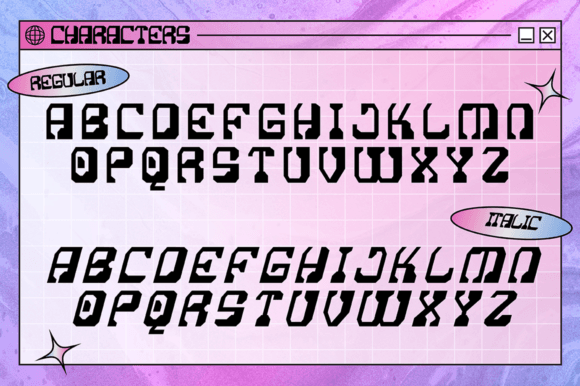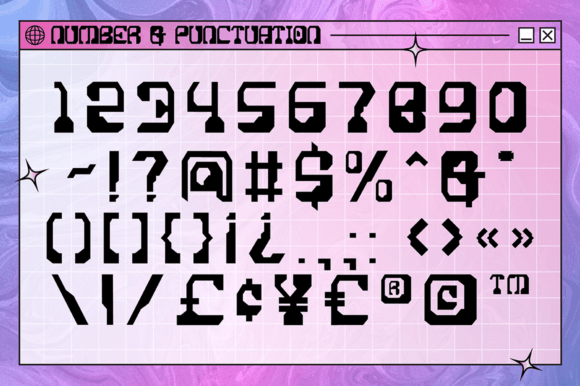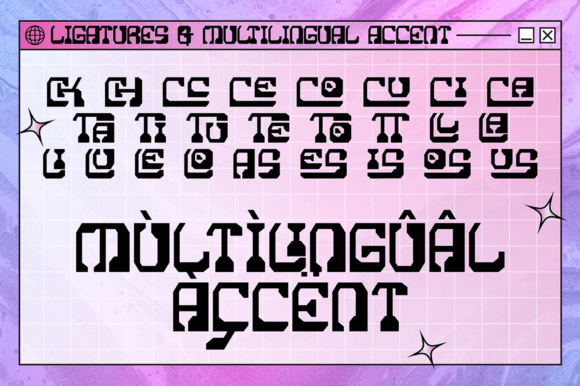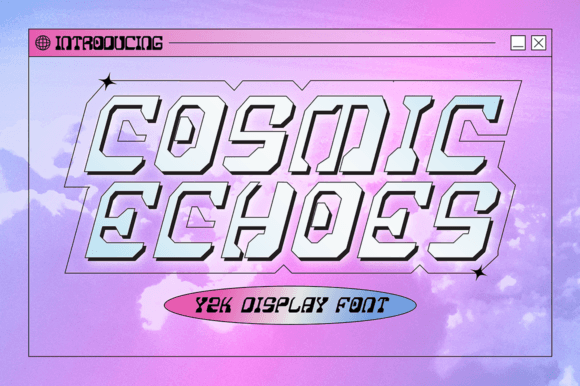
Introduction to Cosmic Echoes Font
Step into a time machine with Cosmic Echoes, a font that captures the vibrant essence of the early 2000s.
This retro typeface brings back the playful and energetic vibes of the Y2K era, perfect for adding a touch of nostalgia to your modern designs Cosmic Echoes features bold and quirky characters that are inspired by the turn of the millennium.